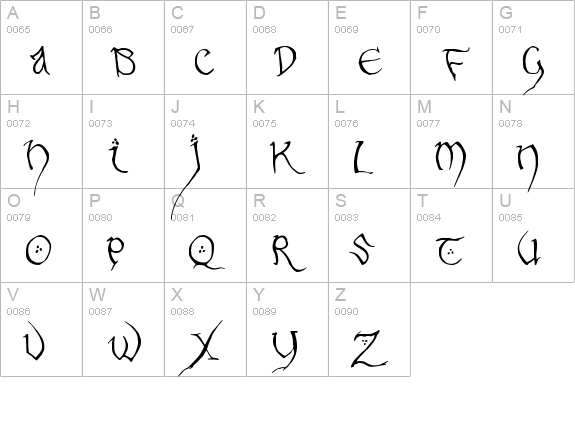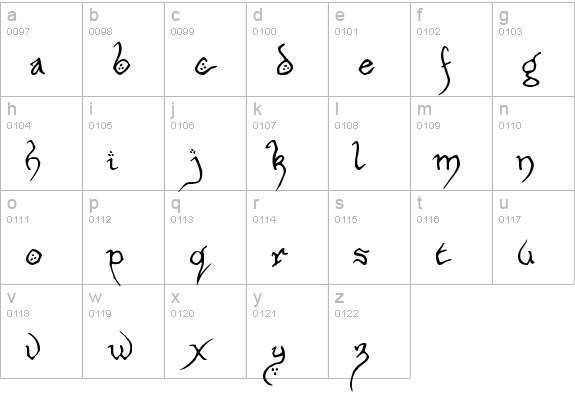
Hobbiton Handscrawl Regular is the standard, neutral variant in the Hobbiton typeface family \xE2\x80\x94 well suited to general body text, paragraphs, and standard typographic work.
Hobbiton Handscrawl Regular font is a whimsical and charming typeface that captures the essence of a cozy village in the Shire. Its hand-drawn style exudes warmth and friendliness, making it perfect for adding a touch of magic to your designs. The playful and organic feel of this font will transport you to a world of fantasy and adventure, just like stepping into the lush green hills of Hobbiton. Best of all, Hobbiton Handscrawl Regular font is completely free to download at FontsMarket.com. You can bring the enchanting spirit of the hobbits into your projects without any cost. Whether you're creating invitations, posters, or branding materials, this font will add a touch of whimsy and delight. Embrace the charm of the Shire with Hobbiton Handscrawl Regular font and let your creativity soar!